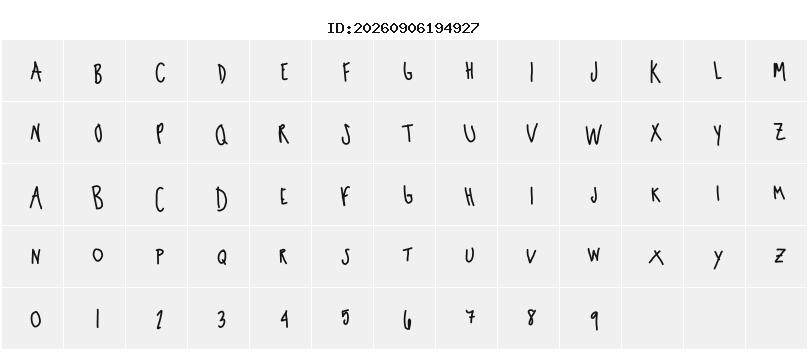
uppercase 1 Preview
• Font Name: uppercase 1
• Full Font Name: uppercase 1
About uppercase 1.ttf
uppercase 1.ttf is a modern, elegant sans-serif font designed for ultimate readability and visual harmony. Perfect for branding, headlines, web design, and print materials.